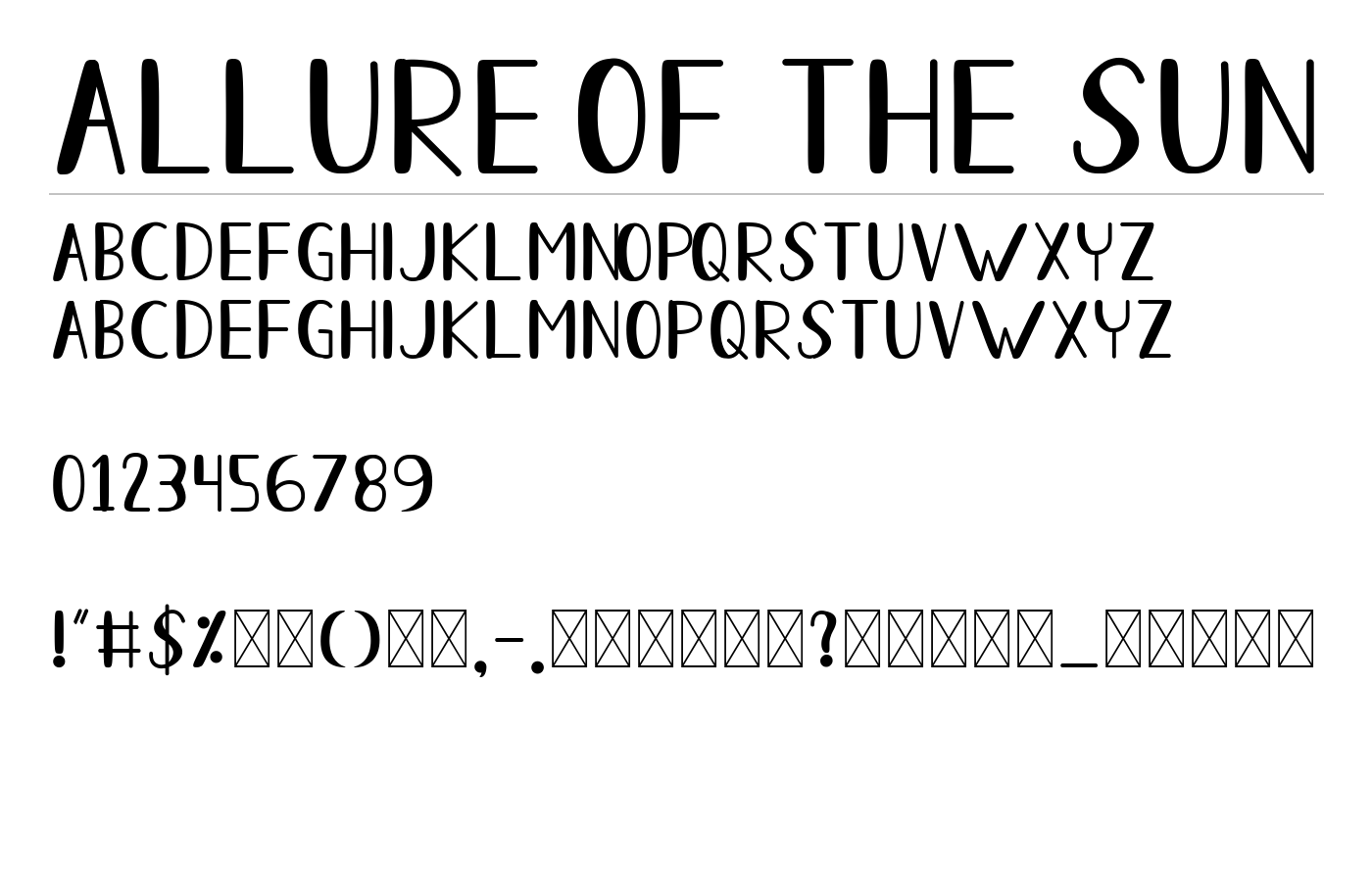
Allure Of The Sun is a whimsical, narrow sans serif font with a hand-drawn, playful character. Its tall, slightly irregular letterforms and quirky details give it a casual and friendly feel, making it perfect for creative projects, children's books, or lighthearted branding. This font shines in headlines, logos, and any design needing a charming and approachable personality.
Allure Of The Sun Font
About Allure Of The Sun Font
| Font family | Allure Of The Sun Font |